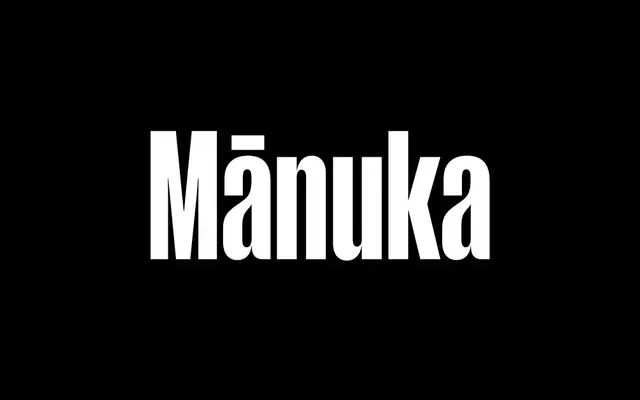
Mānuka
Klim Type Foundry · Kris Sowersby · 2021
Mānuka specimen from Klim Type Foundry
A compressed display family riffing on 19th century German timber type, drawn for poster sizes with tight spacing and sharp joins.
A compressed display by Kris Sowersby that pulls deviant details from Teutonic timber type and grafts them onto a contemporary antipodean voice. Seven weights run from Thin through to Ultra, with closed apertures, tight spacing and sharp joins that build a dense texture at poster sizes. The wider Mānuka collection extends into Mānuka Condensed and Mānuka Slab, so the system carries one mood across grotesque and slab forms.
Klim classifies it as Lineal: Grotesque; a collection of compressed fonts for large sizes that pilfers deviant details from Teutonic timber type and grafts a contemporary antipodean aesthetic onto 19th century German root-stock.